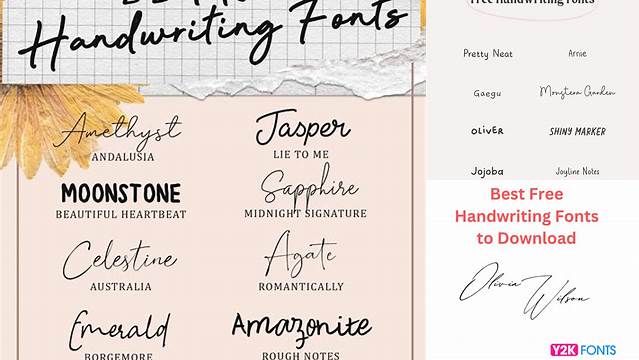
Free Handwriting Fonts: Download The Best Styles Now
Hey guys! Are you on the hunt for some awesome handwriting fonts to spice up your projects? You've come to the right place! In this article, we're diving deep into the world of free handwriting fonts. Whether you're designing invitations, creating social media graphics, or just want to add a personal touch to your work, we've got you covered. We'll explore a ton of different styles, where to find them, and how to use them effectively. So, let's get started and find the perfect free handwriting fonts for your needs!
1. The Appeal of Free Handwriting Fonts
Why are handwriting fonts so popular, anyway? Well, they bring a human touch to digital designs, making them feel more personal and authentic. In a world dominated by sleek, sans-serif fonts, a good handwriting font can really make your work stand out. Think about it: a handwritten note feels warmer and more heartfelt than a typed one, right? That's the same feeling these fonts can evoke. Plus, with the rise of digital art and personalized branding, free handwriting fonts are a fantastic way to add character and charm. Whether it's for a wedding invitation, a blog header, or a logo, the right handwriting font can make all the difference. We'll explore why these fonts are so appealing and how they can enhance your creative projects.
2. Where to Find Free Handwriting Fonts
Okay, so you're sold on the idea of using handwriting fonts, but where do you find them? The internet is bursting with options, but not all font sites are created equal. Some are brimming with high-quality freebies, while others might lead you down a rabbit hole of dodgy downloads and copyright issues. Don't worry, we're here to guide you through the maze! We'll share our favorite websites and resources for finding amazing free handwriting fonts. We'll also give you some tips on how to spot a trustworthy source and avoid any potential headaches. Let's make sure you're downloading your fonts from the best spots on the web!
4. Types of Handwriting Font Styles
One of the best things about handwriting fonts is the sheer variety available. From elegant calligraphy to playful scribbles, there's a style to suit every project. But with so many options, it can be tricky to know where to start. That's why we're going to break down the main types of handwriting fonts, so you can get a feel for what's out there. We'll explore everything from formal scripts perfect for invitations to casual, messy fonts ideal for blog posts and social media. By the end of this section, you'll have a clear idea of the different styles available and which ones might be the best fit for your creative vision.
5. Calligraphy-Inspired Fonts
If you're after a touch of elegance and sophistication, calligraphy-inspired fonts are the way to go. These fonts mimic the graceful strokes of traditional calligraphy, adding a touch of class to any design. Think flowing lines, delicate curves, and a generally fancy vibe. Calligraphy fonts are perfect for wedding invitations, formal announcements, and anything that needs a touch of refinement. We'll showcase some stunning examples of free calligraphy-inspired handwriting fonts and talk about how to use them effectively to create a luxurious feel. Let's bring a bit of classic beauty to your designs!
6. Cursive Handwriting Fonts
Cursive fonts are all about smooth, connected letters that flow seamlessly across the page. They're reminiscent of classic handwriting and bring a sense of familiarity and warmth to your projects. These fonts are incredibly versatile and can be used in a wide range of designs, from branding to stationery. We'll explore the nuances of cursive fonts, highlight some top free choices, and discuss how to best incorporate them into your work for a natural, handwritten look. Get ready to add a touch of heartfelt charm with these beautiful cursive styles!
7. Script Handwriting Fonts
Script fonts are a broad category that includes both calligraphy and cursive styles, but they also encompass more decorative and stylized options. They often feature elaborate flourishes and unique letterforms, making them perfect for creating eye-catching headlines and logos. However, with their intricate designs, script fonts can sometimes be tricky to read, so it's important to use them sparingly and choose wisely. We'll delve into the world of script fonts, offering tips on how to select the right one for your project and how to ensure readability while still making a statement. Let’s explore the elegance and flair that script fonts can bring to your designs!
8. Casual Handwriting Fonts
For a more relaxed and approachable feel, casual handwriting fonts are your best bet. These fonts mimic everyday handwriting, with slight imperfections and variations that make them feel authentic and personal. Casual fonts are fantastic for blog posts, social media graphics, and anything that needs a friendly, informal touch. We'll take a look at some fantastic free casual handwriting fonts, discuss their strengths, and how to use them to create a welcoming and relatable vibe in your designs. Time to loosen up and add some laid-back charm!
9. Bold and Chunky Handwriting Fonts
Need a font that really stands out? Bold and chunky handwriting fonts are perfect for grabbing attention. These fonts have a strong presence and can make a big impact, whether you're designing posters, headlines, or anything that needs a bit of oomph. They’re great for adding emphasis and creating a memorable visual. We'll showcase some of the best free bold handwriting fonts, talk about how to use them effectively, and help you make a statement with your typography. Get ready to make a bold impression!
So there you have it, guys! A deep dive into the wonderful world of free handwriting fonts. We've covered everything from where to find them to how to use them effectively in your projects. Now it's time to get creative and start experimenting with these fantastic fonts. Happy designing!